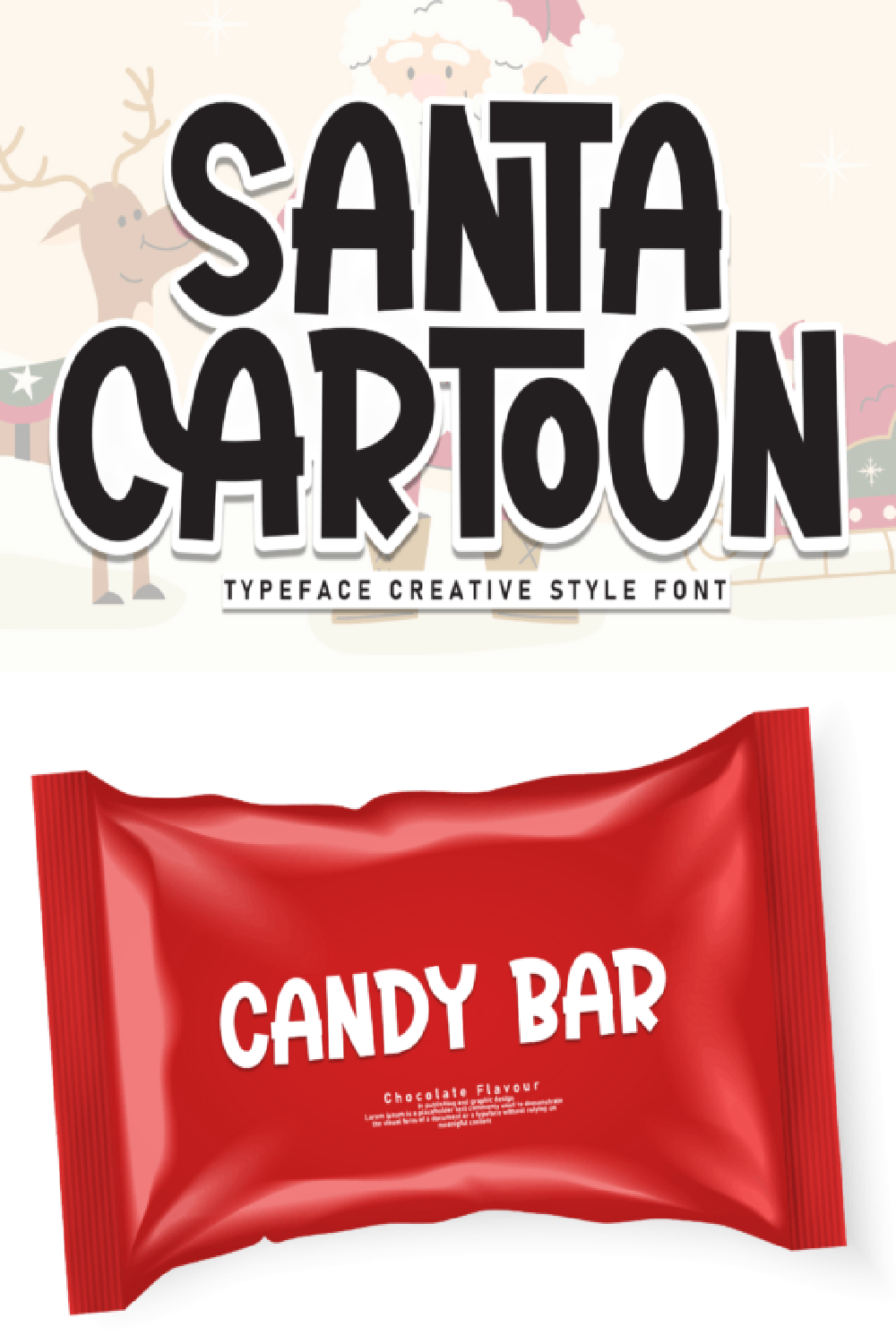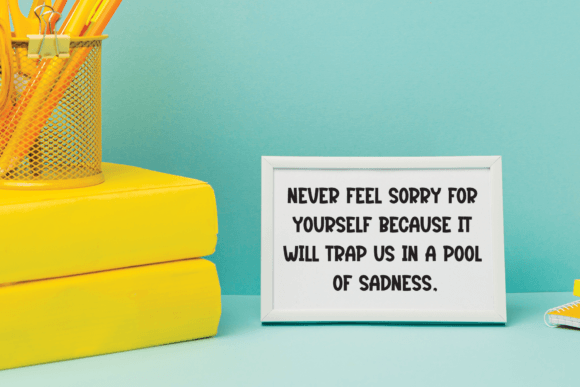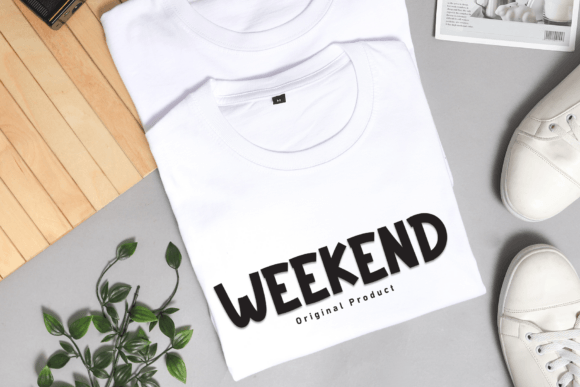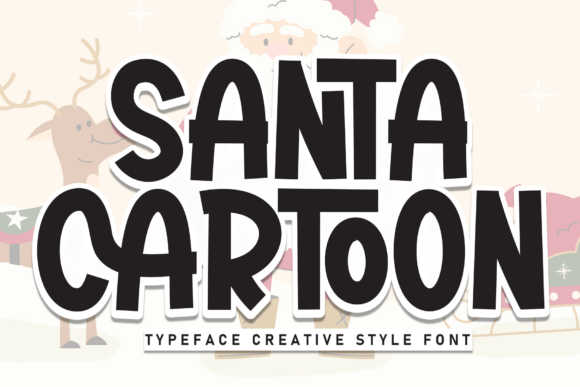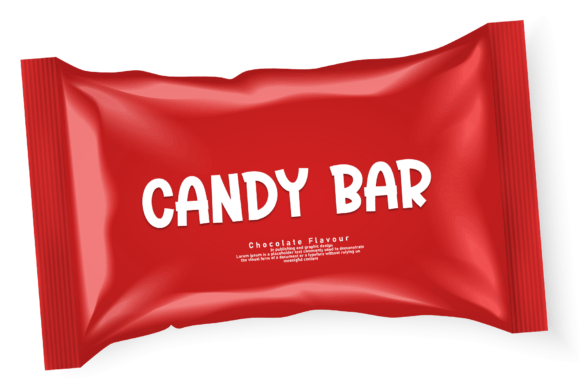
Santa Cartoon Font
About the Santa Cartoon Font
The Santa Cartoon Font is here to transform your projects with its distinctive character and style. Santa Cartoon is a fun and playful bold display font. It features rounded edges and cheerful letters, perfect for festive designs and holiday themes. This font captures the joyful spirit of Christmas, making it great for cards, posters, and decorations!
Santa Cartoon Font Usage Examples